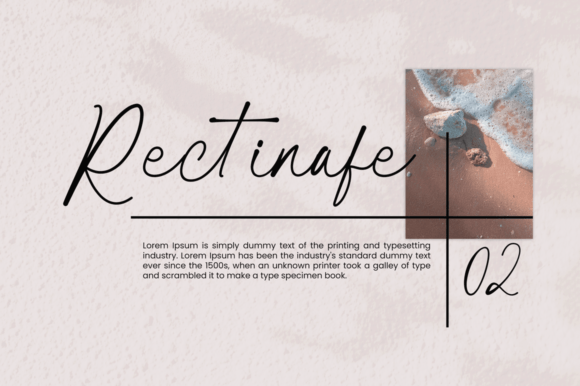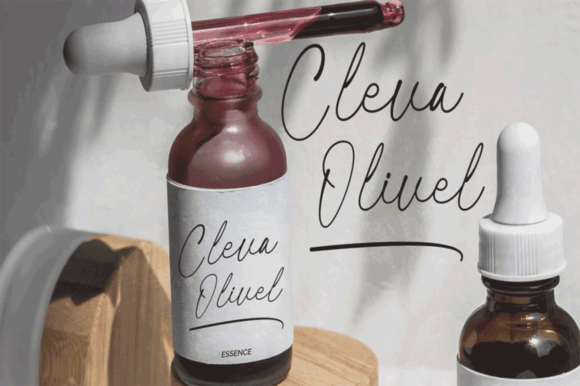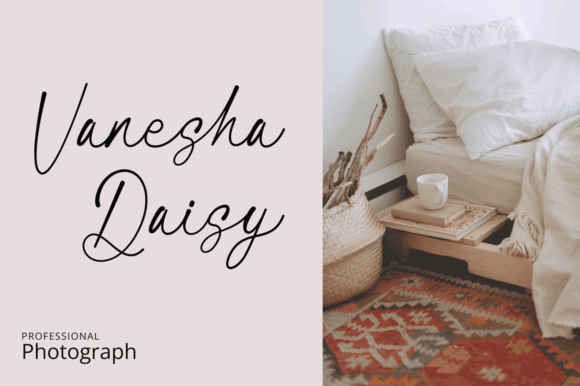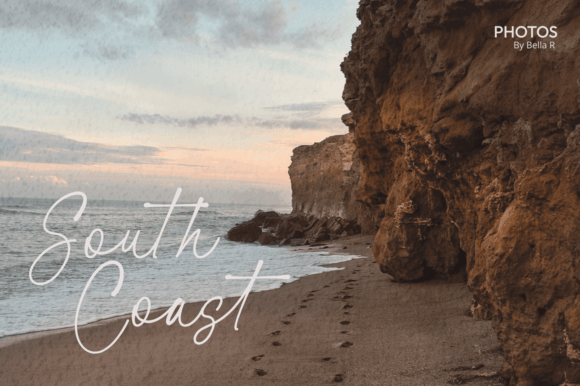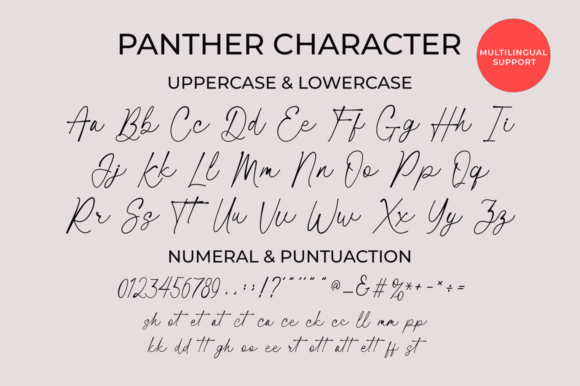
Santun Signature Font
About Santun Signature Font
Santun Signature Font Download is the perfect way to add elegance, detail, and modern flair to any creative project. This dazzling script typeface is beautifully handcrafted with precision, offering a clean and sophisticated flow that elevates logos, branding materials, greeting cards, and more.
With its refined style and high-quality finish, Santun Signature strikes a balance between charm and professionalism. Whether you’re working on a romantic wedding suite or crafting a luxury product label, this font adds just the right amount of elegance and artistic beauty.
Elegance in Every Stroke
Santun is more than just a script font—it’s a signature-style design tool that captures the essence of high-end handwritten lettering. Each letter is crafted with fine attention to detail, ensuring natural curves and fluid motion. Its ligatures and alternate glyphs help create that hand-lettered authenticity that designers love.
Ideal for:
• Wedding invitations and event stationery
• Premium brand logos and packaging
• Quotes and Instagram graphics
• Product labels and fashion designs
• Personal signatures and branding assets
This font offers just the right amount of personality without overwhelming your message.
A standout feature is its PUA encoding, which allows you to access all alternate glyphs and decorative swashes without any special software. That means you can fully customize your typography—even if you’re not using professional design tools.
Versatile Yet Stylish
Santun Signature is flexible enough to use across a wide range of design themes, yet distinct enough to elevate even the simplest layout. Its unique structure helps maintain readability while offering an upscale feel. The font pairs beautifully with minimalist sans-serifs for modern branding, or with soft serif fonts for a more classic look.
No matter the occasion, Santun adapts to your needs—whether it’s a sleek logo for a luxury brand or a personal project that needs a touch of handwritten elegance.